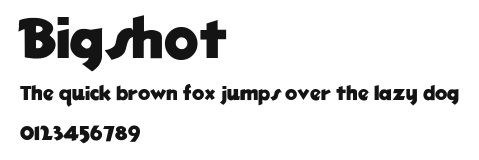
Bigshot Preview
• Font Name: Bigshot
• Full Font Name: Bigshot
• PostScript Name: Bigshot
About Bigshot.ttf
Bigshot.ttf is a modern, elegant sans-serif font designed for ultimate readability and visual harmony. Perfect for branding, headlines, web design, and print materials.